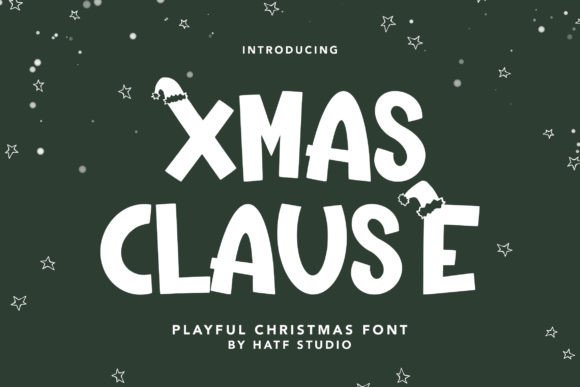
Introducing Xmas Clause Font, the ultimate font for capturing the essence of the holiday season! Crafted by the talented designers at Hatf Type, this display font is a must-have for anyone looking to infuse their projects with festive charm and creativity.
With its playful Christmas-inspired characters, Xmas Clause Font is the perfect choice for a wide range of applications. Whether you're working on branding projects, designing eye-catching logos, creating stunning wedding designs, or even sprucing up your social media posts, this font has got you covered.
But its versatility doesn't stop there. Xmas Clause Font is also ideal for advertisements, product packaging, labels, photography, watermarks, invitations, stationery, and any project that craves unique typography. It effortlessly adds a touch of holiday magic to every design, making it stand out from the crowd.
One of the standout features of Xmas Clause Font is its PUA encoding. This means that accessing all the extra glyphs and swashes is a breeze! Unlock a treasure trove of decorative elements that will take your designs to the next level. The possibilities are truly endless.
Now, let's talk about why Xmas Clause Font is the best font for warning labels. When it comes to communicating caution and urgency, you need a font that grabs attention and delivers the message effectively. Xmas Clause Font does exactly that. Its bold and distinctive characters ensure that your warnings are impossible to ignore, making it the go-to choice for safety-conscious industries.
But Xmas Clause Font offers so much more than just functionality. It evokes emotions, reminding us of the joy and excitement that the holiday season brings. Its whimsical design captures the essence of Christmas, instantly transporting your audience to a place of warmth and cheer.
Imagine the impact of warning labels that not only convey the necessary information but also elicit a positive emotional response. With Xmas Clause Font, you can achieve just that. Your customers will appreciate the thoughtful and creative approach, creating a lasting impression that sets your brand apart.
In conclusion, Xmas Clause Font is a captivating addition to any designer's toolkit. Its festive characters, extensive range of applications, and PUA encoding make it a must-have for anyone seeking to create memorable and impactful designs. Whether you're working on a branding project, need attention-grabbing warning labels, or simply want to add a touch of holiday magic to your creations, Xmas Clause Font is the perfect choice.